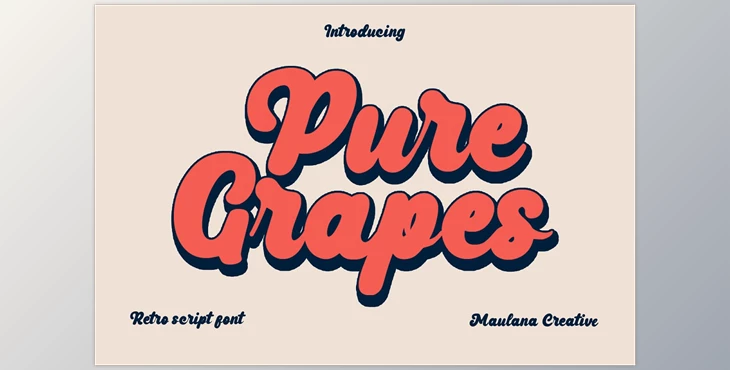
Pure Grapes Retro Cursive Font CreativeMarket 7040860:
Pure Grapes is a fancy handwritten script font. It features a bold contrast stroke, an enjoyable character that has a hint of alternative ligatures and ligatures. For you to do some imaginative work. Pure Grapes font supports multilingual support for more than 100languages. The font is great for logo design, social media, movie Titles or Books Titles or a brief text even a lengthy text, and is a great secondary text font that is serif or sans. Create stunning artwork using the Pure Grapes font.